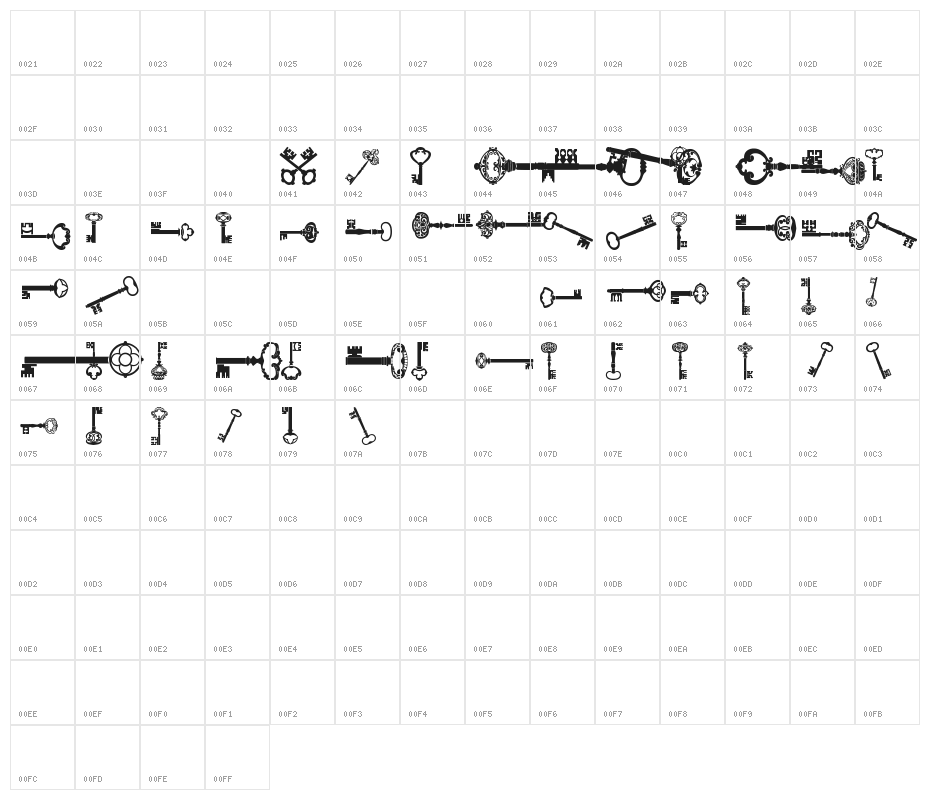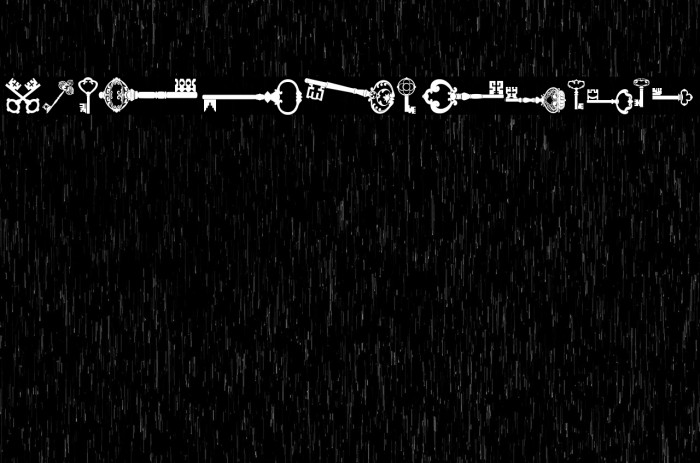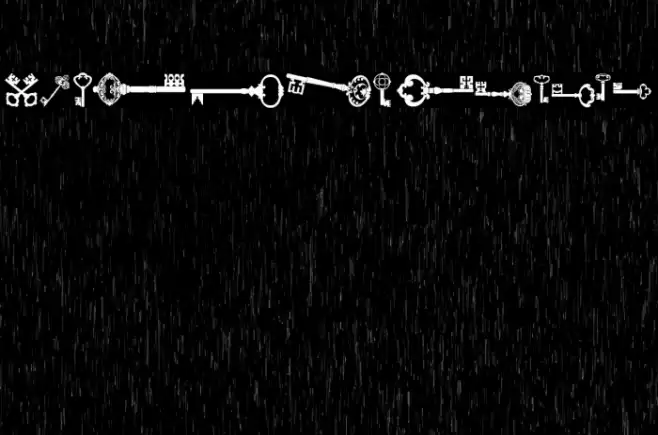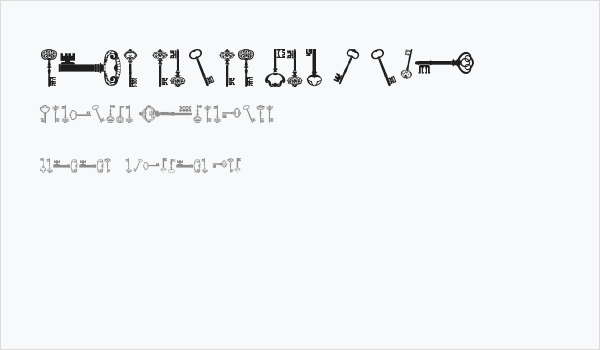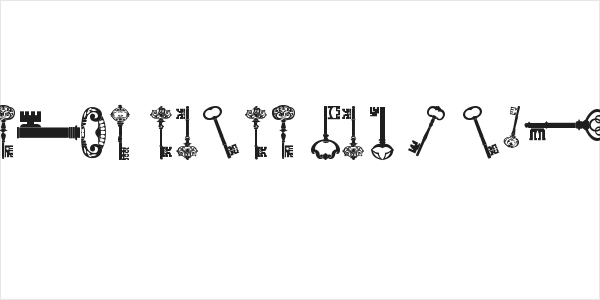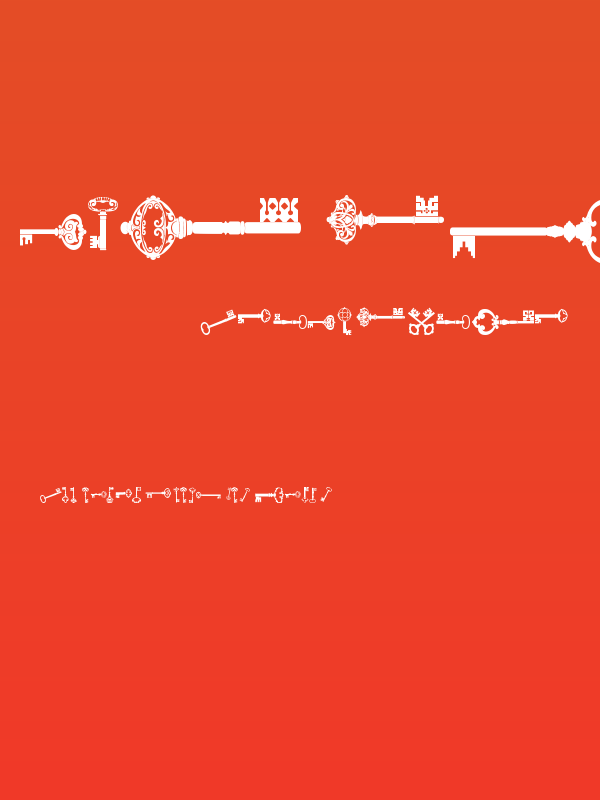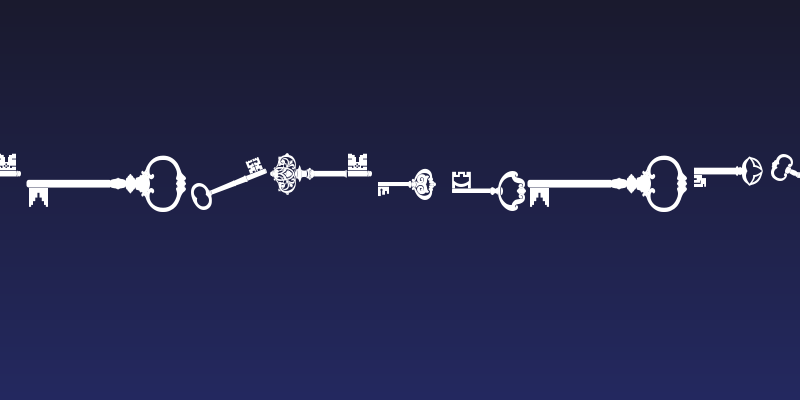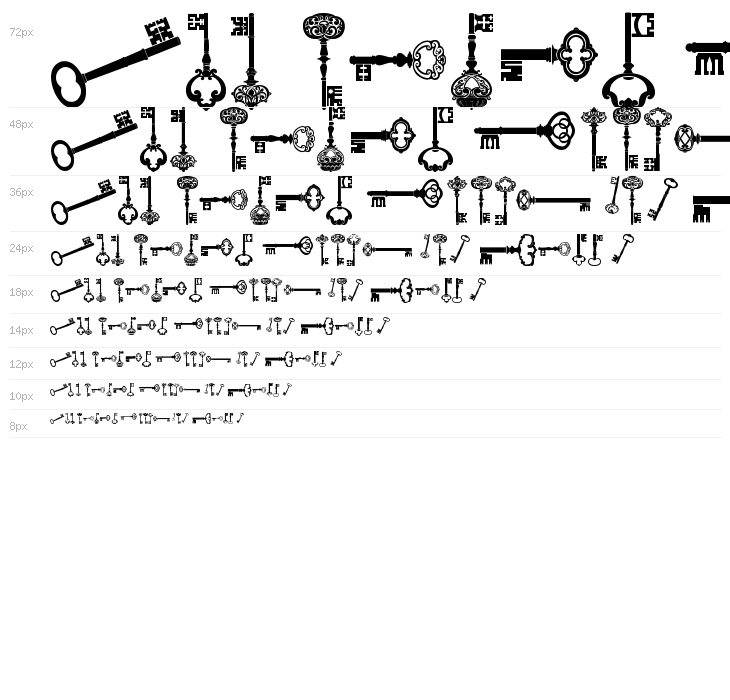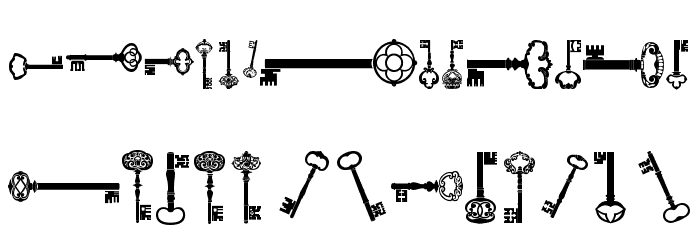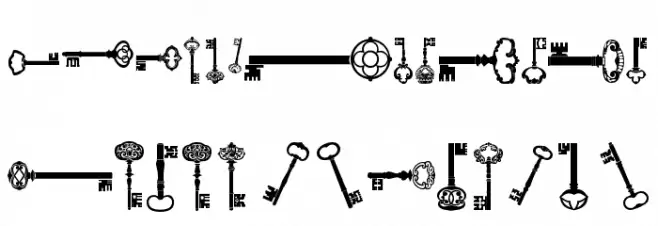
old retro keys tfb Font
old retro keys tfb Description
This unique font features a collection of intricately designed keys, each with a distinct vintage aesthetic. The keys vary in shape and size, showcasing ornate details reminiscent of antique craftsmanship. The design captures the essence of old-world charm, with each key appearing as a miniature work of art. The font is decorative and visually striking, making it ideal for projects that require a touch of nostalgia or historical flair. The keys are rendered in a consistent black outline, providing a bold contrast against any background.
| Use Case | Logos, Decorative elements, Themed graphics |
| Proposed Projects | Ideal for vintage-themed invitations, escape room branding, historical event posters, or any project requiring a nostalgic touch. |